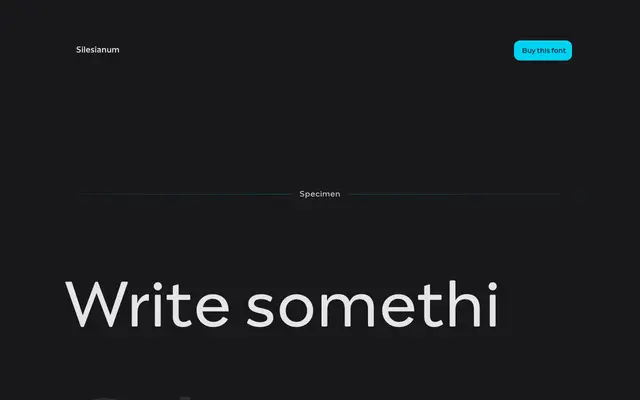
Silesianum
Capitalics · Mateusz Machalski, Henryk Sakwerda, Karol Mularczyk, Weronika Kanigowska, Małgorzata Bartosik, Borys Kosmynka · 2024
A contemporary revival of Henryk Sakwerda's 1986 Monitor typeface, reconstructed from original drawings and expanded into a full eight-style family for the first time.
Originally designed for phototypesetting on strictly defined character widths, Monitor by Henryk Sakwerda (1942–2017) was only ever realised in a single Regular weight and never crossed into digital use. Mateusz Machalski led a team of five over nearly three years to reconstruct, digitise and expand the family to Regular, Medium, SemiBold and Bold with matching italics, working from scans of Sakwerda's original drawings. The sharpness and organic texture of the letterforms — a direct trace of Sakwerda's calligraphic hand — is central to what makes this revival substantive rather than merely archival.
The typeface derives from Henryk Sakwerda's 1986 Monitor, which exhibits sharp organic calligraphic letterforms rooted in humanist tradition; its phototypesetting origins and calligraphic texture place it firmly in the humanist serif category.